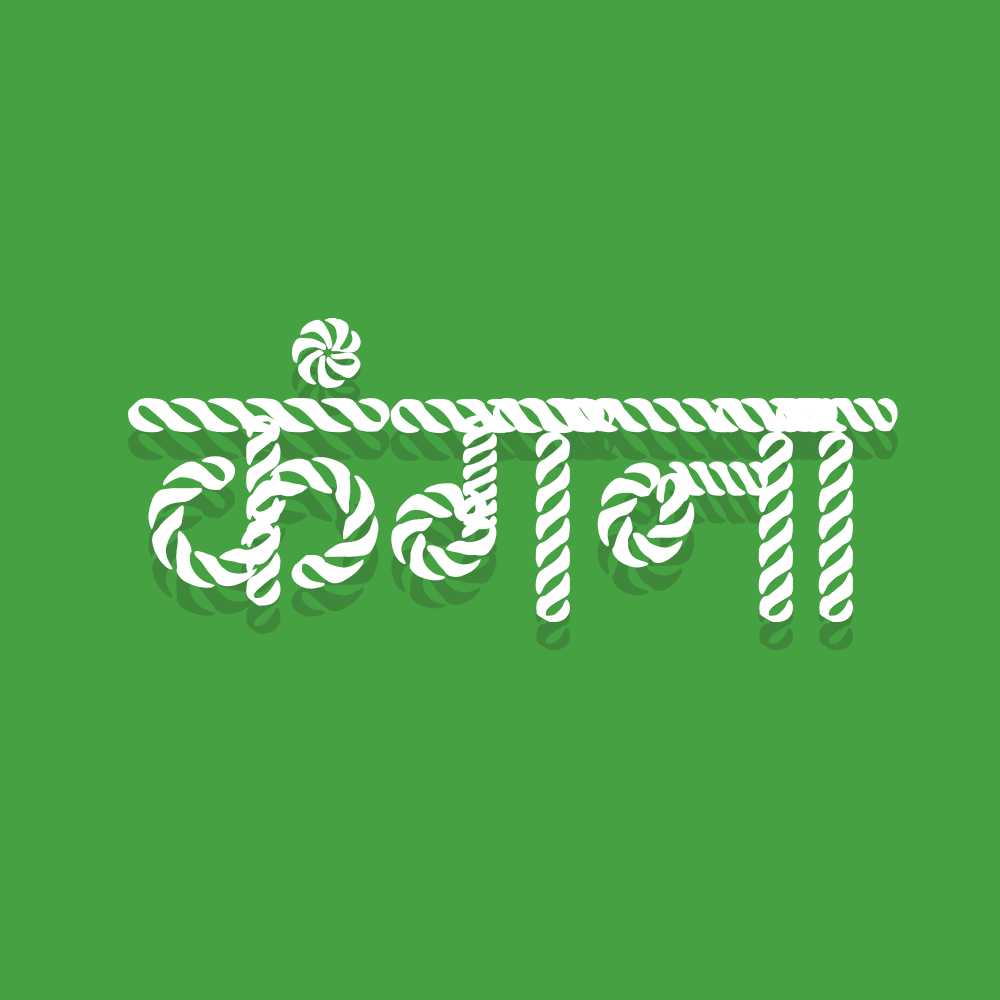
AMS Candy
Indulge your design projects with the delightful AMS Candy font! This decorative font adds a sweet and playful touch to your creations. Perfect for designing eye-catching posters or crafting vibrant social media graphics, AMS Candy will make your designs pop.
AMS Candy font design inspiration and usage example
About AMS Candy Font
Indulge your design projects with the delightful AMS Candy font! This decorative font adds a sweet and playful touch to your creations. Perfect for designing eye-catching posters or crafting vibrant social media graphics, AMS Candy will make your designs pop. This decorative font combines elegance with functionality, making it perfect for various design applications.
AMS Candy is a professionally crafted decorative typeface that brings clarity and style to your projects. Designed with attention to detail, it supports hindi and marathi characters flawlessly.
Whether you're working on wedding-materials, logos, books-publications, or other creative projects, AMS Candy delivers consistent performance across both digital and print media. This carefully designed typeface ensures readability and visual appeal in all your design work.
About AMS Candy Typography Style
AMS Candy is a professionally crafted decorative font that exemplifies modern Hindi typography design. This free font is perfect for designers seeking professional branding and logo design projects.
Available in 1 weight and supporting hindi, marathi scripts, AMS Candy offers exceptional versatility for both digital and print media. Whether you're working on wedding-materials, logos, books-publications, this carefully designed typeface ensures consistent quality and professional results across all your typography projects.